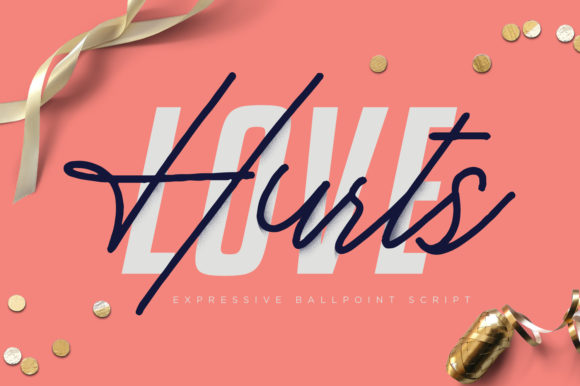
Prepare to be captivated by Love Hurts, a script font that weaves romance and sophistication into every letterform. Its graceful strokes and interconnected characters exude a timeless charm, evoking the allure of handwritten love letters and the elegance of vintage calligraphy.
With Love Hurts, your designs will blossom into captivating expressions of affection. Whether you're crafting heartfelt wedding invitations, expressing gratitude with personalized thank you cards, or creating visually stunning quotes and greeting cards, this font will add a touch of heartfelt warmth to your creations.
Envision your brand adorned with the exquisite beauty of Love Hurts. Its delicate curves and sweeping flourishes will elevate your logos and business cards, leaving an unforgettable impression on your clients. Let Love Hurts be the elegant ambassador of your brand, communicating your commitment to excellence and attention to detail.
Immerse yourself in the versatility of Love Hurts. Its adaptability knows no bounds, seamlessly flowing from the formal elegance of wedding invitations to the playful charm of birthday cards. Unleash your creativity and watch as Love Hurts transforms your designs into heartfelt expressions of joy, love, and celebration.
Love Hurts is more than just a font; it's an artistic masterpiece that breathes life into your designs. Its enchanting aura will captivate your audience, leaving them spellbound by the beauty of your creations. Embrace the allure of Love Hurts and let your designs speak volumes, enchanting all who behold them.